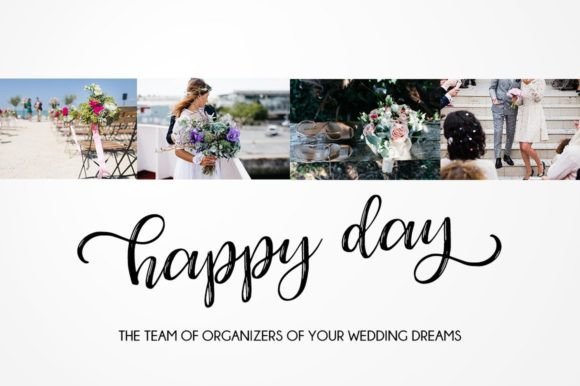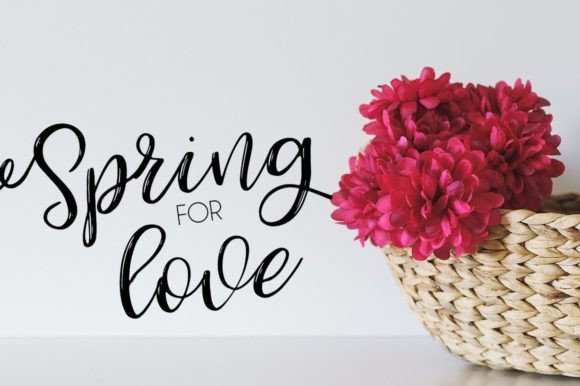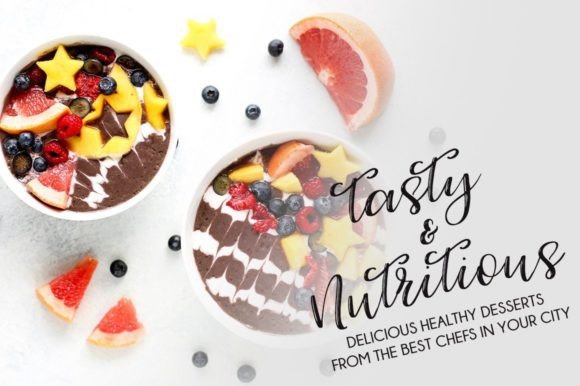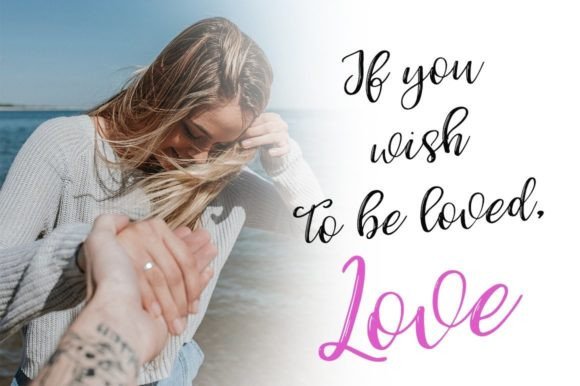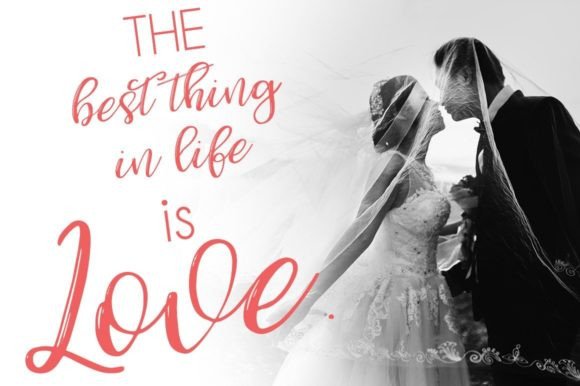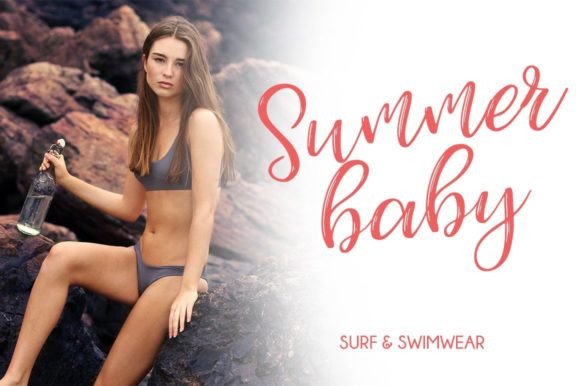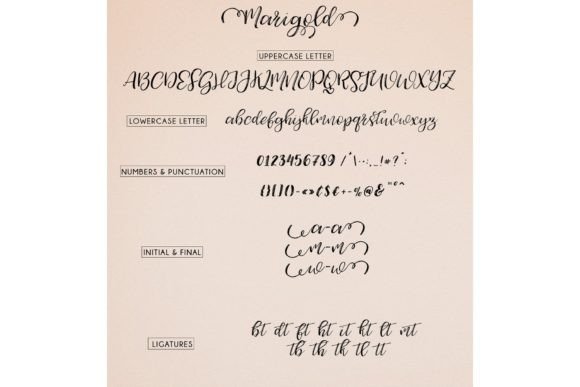
Marigold Font
About Marigold Font
“Marigold” is a captivating script font designed with a touch of elegance, giving it a magical quality that elevates any creative project. Whether you’re searching for fonts to enhance your Instagram posts or elegant calligraphy scripts for DIY projects, “Marigold” has the power to transform your creative ideas into true pieces of art.
One of the key attributes of “Marigold” is its enchanting and graceful appearance. The font’s carefully crafted letterforms exude elegance and charm, making it a perfect choice for a wide range of applications. Its magical aura adds a sense of wonder and sophistication to your designs, captivating the attention of viewers.
The versatility of “Marigold” is another standout feature. It can seamlessly adapt to various contexts, whether you’re designing social media graphics, wedding invitations, greeting cards, posters, or any other creative project. The font’s elegant script enhances the visual appeal of your content, creating a cohesive and polished look.
For Instagram posts and social media content, “Marigold” can add a touch of sophistication and creativity. Its magical and artistic vibe can transform your captions, quotes, or promotional messages into visually appealing artworks, making your content stand out in the crowded digital space.
In DIY projects, “Marigold” serves as a valuable tool for adding a personalized and elegant touch. Whether you’re creating custom gifts, home décor items, or crafting personalized stationery, the font’s magical script enhances the overall aesthetic, turning ordinary items into extraordinary pieces of art.
In summary, “Marigold” is more than just a font; it’s a creative companion that can elevate your projects to new heights. Its magical and elegant script breathes life into your ideas, transforming them into visually captivating works of art. Embrace the enchantment of “Marigold” and let it inspire your creativity, turning your creative visions into reality.